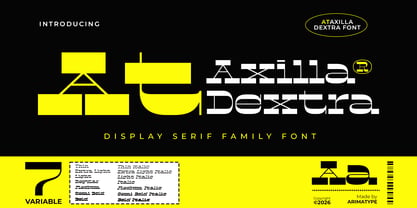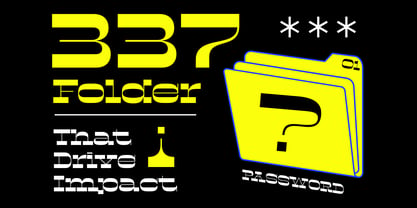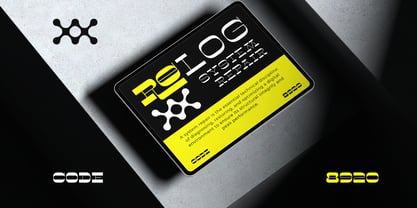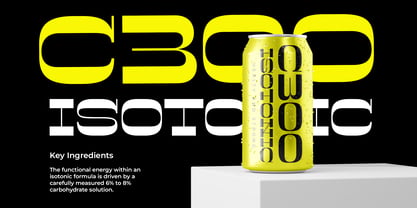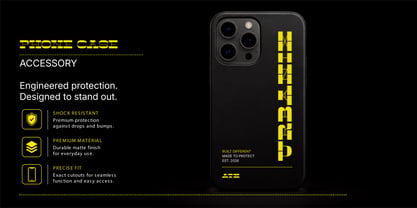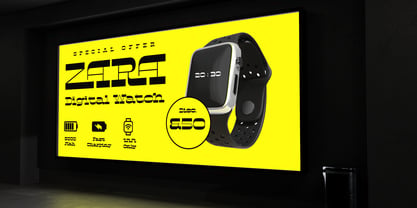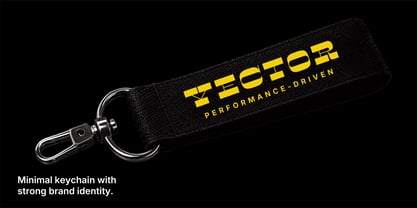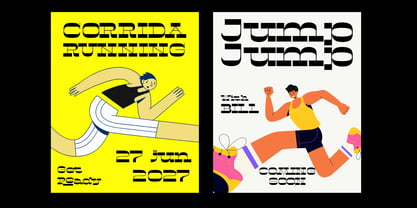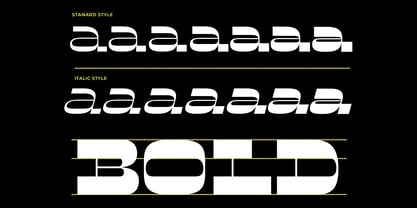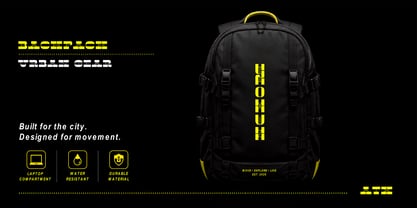
AT Axilla Dextra
by ArimaType
The AT Axilla Dextra Font Family was designed by Amri Mauludin and published by ArimaType. AT Axilla Dextra contains 14 styles and family package options. More about this family
AT Axilla Dextra is a distinctive display typeface that reimagines the traditional slab serif concept with an unconventional approach. While classic slab serifs are known for their uniform stroke weight, AT Axilla Dextra turns the formula upside down by emphasizing heavier serifs and terminals against comparatively lighter stems. The result is a bold, eye-catching personality that feels both retro and refreshingly original.
Designed to stand out in branding, packaging, editorial headlines, posters, and logo design, this typeface delivers a strong visual presence without sacrificing readability. Its unique contrast creates a playful yet confident character, making it an excellent choice for brands seeking a memorable and unconventional identity.
AT Axilla Dextra comes in 7 weights, each accompanied by a matching italic style, providing flexibility for a wide range of creative applications. It also includes a selection of alternate characters and ligatures, allowing designers to create expressive and customized typography with ease.
Whether you're building a nostalgic retro-inspired brand or crafting a contemporary design that demands attention, AT Axilla Dextra offers a fresh perspective on display typography with a character all its own.